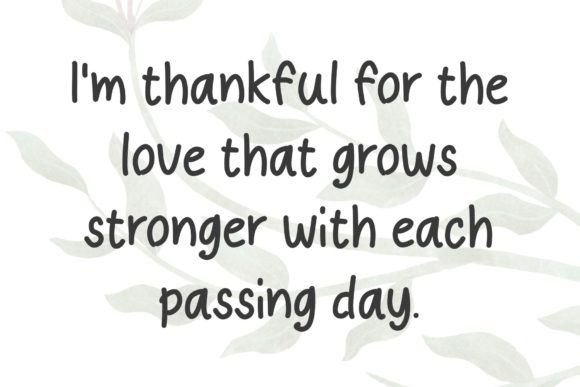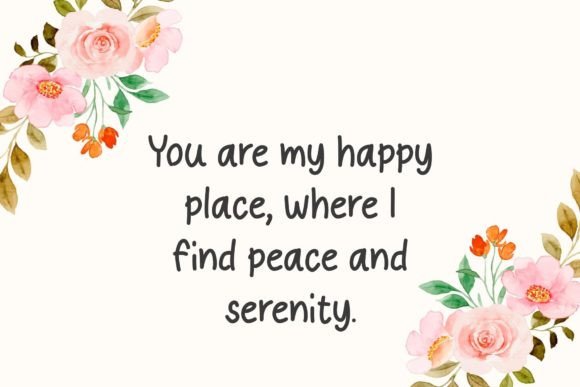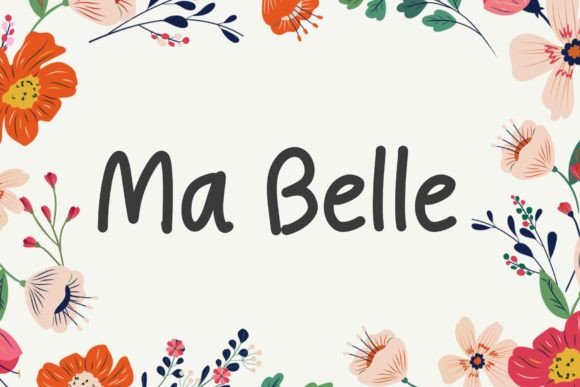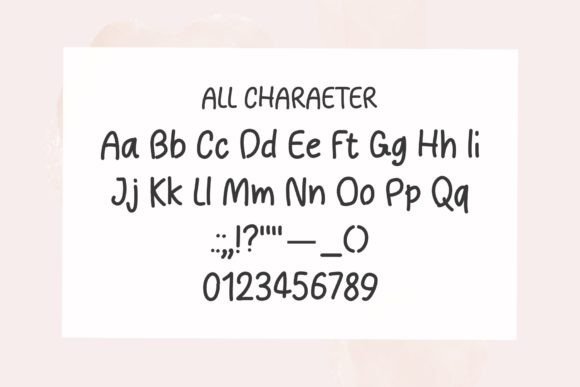
Introduction to Ma Belle Font
Have you ever been working on a creative project, pouring your heart and soul into every detail, and then you stumble upon the perfect font to elevate your design? That’s exactly what happened to many designers when they discovered Ma Belle Font. This stunning typeface has been making waves in the design community with its elegance, beauty, and sophistication.
Ma Belle Font is more than just a pretty face – it’s a design resource that can add a touch of refinement to any project. With its delicate curves and graceful lines, it’s perfect for creating high-quality designs that demand attention. Whether you’re working on a branding project, a website, or a print material, Ma Belle Font is an excellent choice that can elevate your design to the next level.
Key Features of Ma Belle Font
- High-quality design resource with a unique, elegant style, perfect for creative projects.
- Features a transparent background, making it ideal for use on images and other design elements.
- Available in a single weight, with a high resolution of 300 DPI, ensuring crisp and clear text display.
- Designed to be versatile and easy to use, making it a great addition to any design resource collection.
Honest Review: Ma Belle Font
I recently stumbled upon Ma Belle Font, a beautiful script font that has been a game-changer for my creative projects. The moment I saw its elegant, handwritten design, I knew I had to give it a try.
One of the things I love about Ma Belle Font is its high quality and versatility. It’s perfect for creating eye-catching titles, quotes, and even entire paragraphs of text. The font is available for free download, which is a huge plus for designers on a budget.
- ✨ Great for creating a romantic or vintage feel in your design projects
- ✨ Perfect for creating titles, quotes, or headings that pop
- ✨ Works well with a transparent background to create a beautiful, watercolor effect
However, I do have a few minor complaints about Ma Belle Font. For one, it’s not ideal for small text sizes, as the letters can become difficult to read. Additionally, the font doesn’t come with a comprehensive character set, which can be limiting for some designers.
- ⚠️ Not ideal for small text sizes
- ⚠️ Limited character set
Overall, I’m really impressed with Ma Belle Font. It’s a beautiful, high-quality font that’s perfect for designers looking to add a touch of elegance to their creative projects. With a few minor tweaks, it could be a truly exceptional design resource.
Tips for Getting the Most Out of Ma Belle Font
Ma Belle Font is ideal for a variety of creative projects, including social media graphics, blog posts, and marketing materials.
Comparison to Ma Belle Font: While Ma Belle Font is known for its whimsical and playful feel, the Alex Brush Font offers a more refined and sophisticated look, making it suitable for a wider range of design projects.